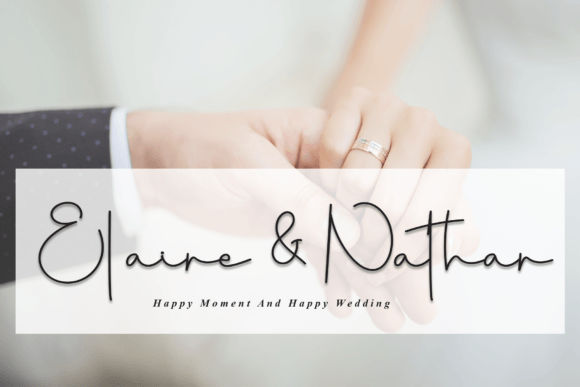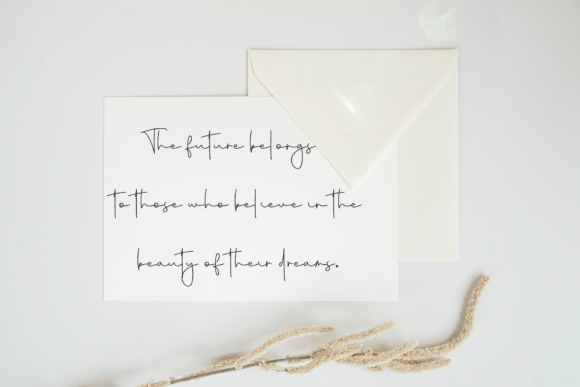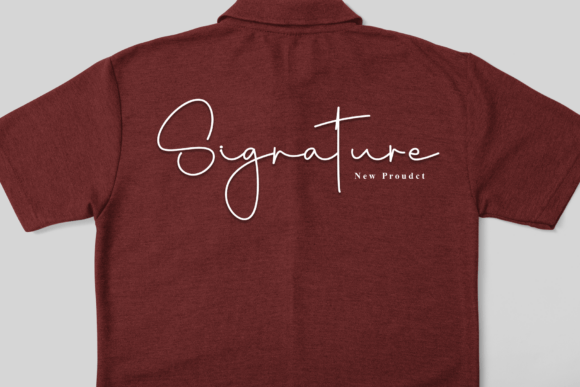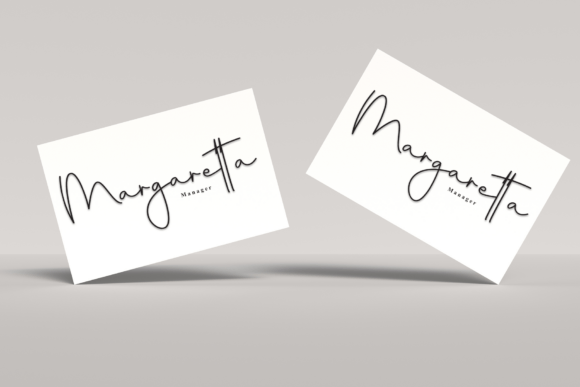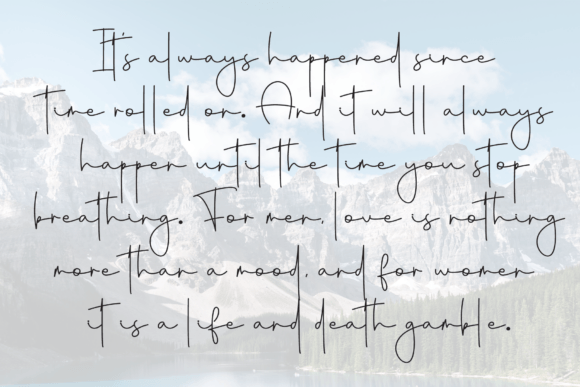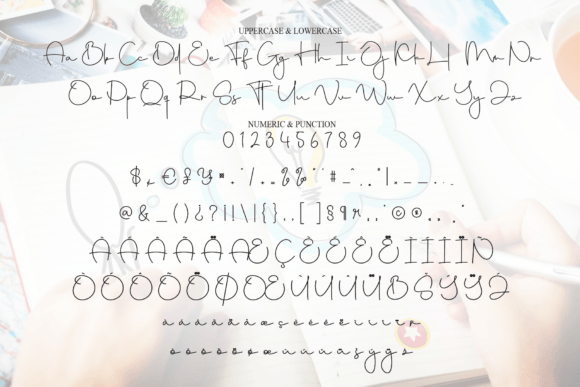
The Power of Creative Font: Elevate Your Designs with Elegance
Have you ever been in the middle of a design project, and suddenly, you’re stuck on finding the perfect font? I recall a particularly frustrating experience while working on a wedding invitation design. My client wanted a font that exuded elegance and sophistication, but I just couldn’t seem to find the right fit. That’s when I stumbled upon the Creative font, and it completely transformed my design. In this article, we’ll dive into the world of Creative font, exploring its features, uses, and some helpful tips and tricks.
As a designer, I’m always on the lookout for fonts that can elevate my work. Here’s what I love about Creative font:
- ✨ Elegant curves and smooth lines that give it a beautiful, handwriting-like feel
- ✅ Perfect for invitations, logos, and creative designs that require a touch of sophistication
- 🔥 Simple yet eye-catching, making it versatile for various design projects
While Creative font is an excellent choice, it’s not without its quirks:
- 🤔 Limited availability of certain OpenType features, which may limit its use in specific design contexts
- ⚠️ May not be the best choice for body text or long-form content due to its script nature
The Story Behind Creative Font: Designer Inspiration
Creative font was designed with the intention of creating a beautiful, elegant script font that captures the essence of handwriting. The designer, inspired by the flowing curves and smooth lines of calligraphy, aimed to create a font that would be perfect for creative projects. With its simple yet eye-catching design, Creative font has become a popular choice among designers and crafters.
| Font Name | Creative Font |
| Author | Creativewhitee |
| What is Creative font best used for? | Creative font is perfect for invitations, logos, and creative designs that require a touch of elegance and sophistication. |
| Can I use Creative font for body text? | While Creative font is beautiful, it’s not recommended for body text or long-form content due to its script nature. It’s best used for titles, headings, or short paragraphs. |
| Does Creative font have OpenType features? | Yes, Creative font has some OpenType features, such as glyphs and stylistic alternates, which can be accessed in certain design platforms. |